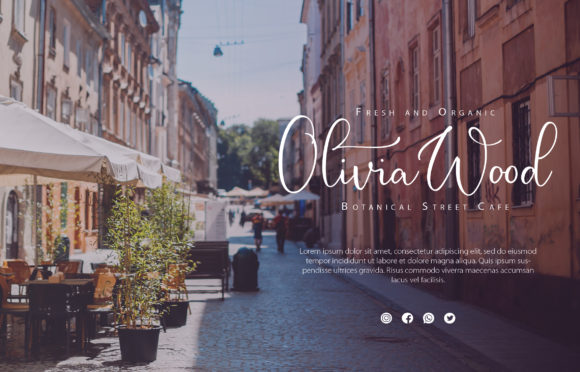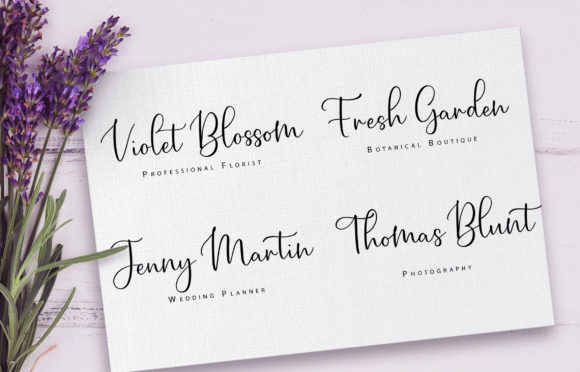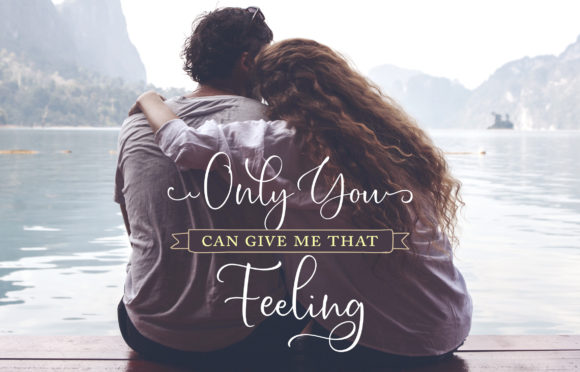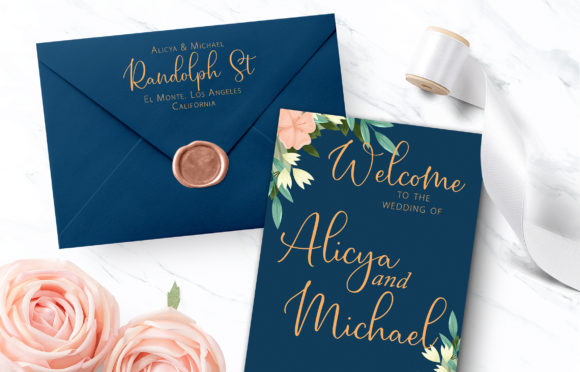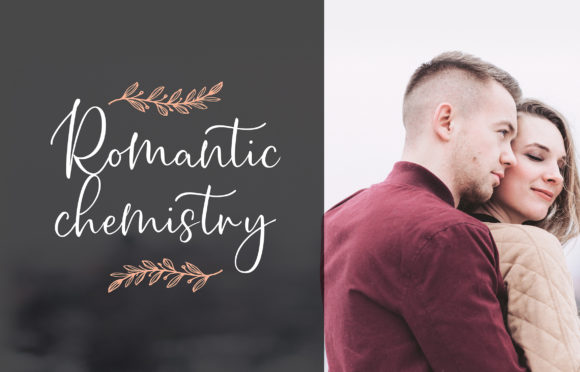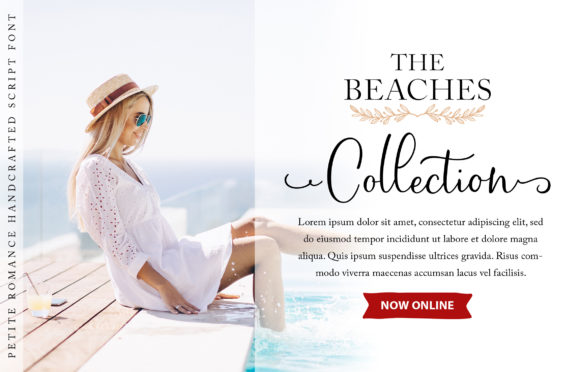
Introduction to Petite Romance Font
Petite Romance simplifies elegance into one truly outstanding script font.
It maintains its classy calligraphic influences while feeling contemporary and fresh This versatility will appeal to a wide range of crafty ideas, from letterheads and titles, to stationery.
Key Features of Petite Romance Font
Why Choose Petite Romance Font?